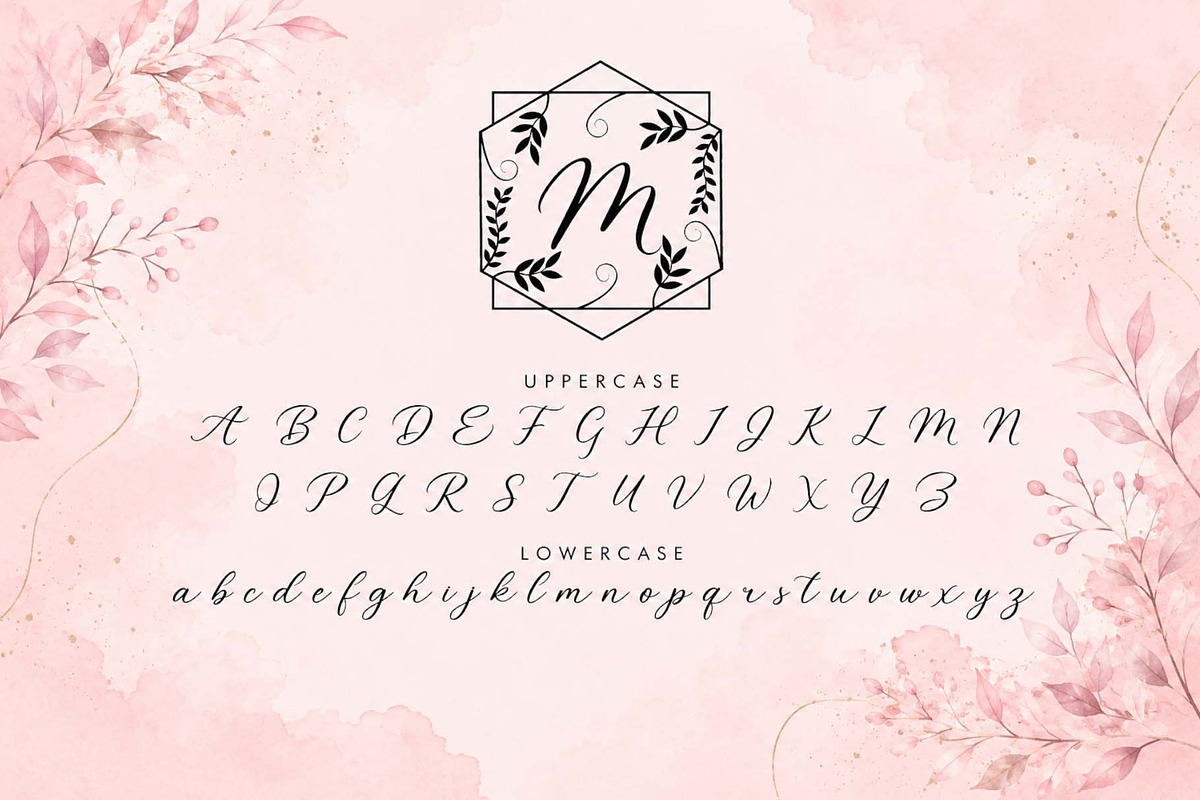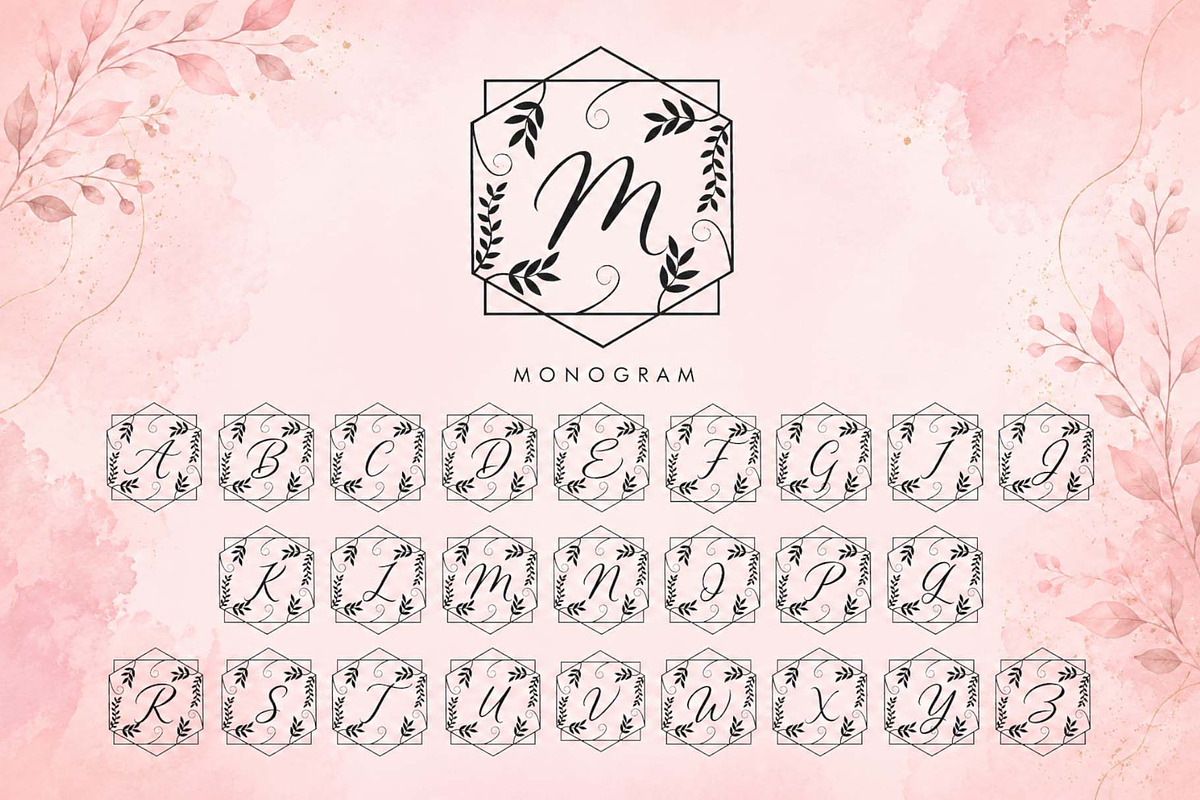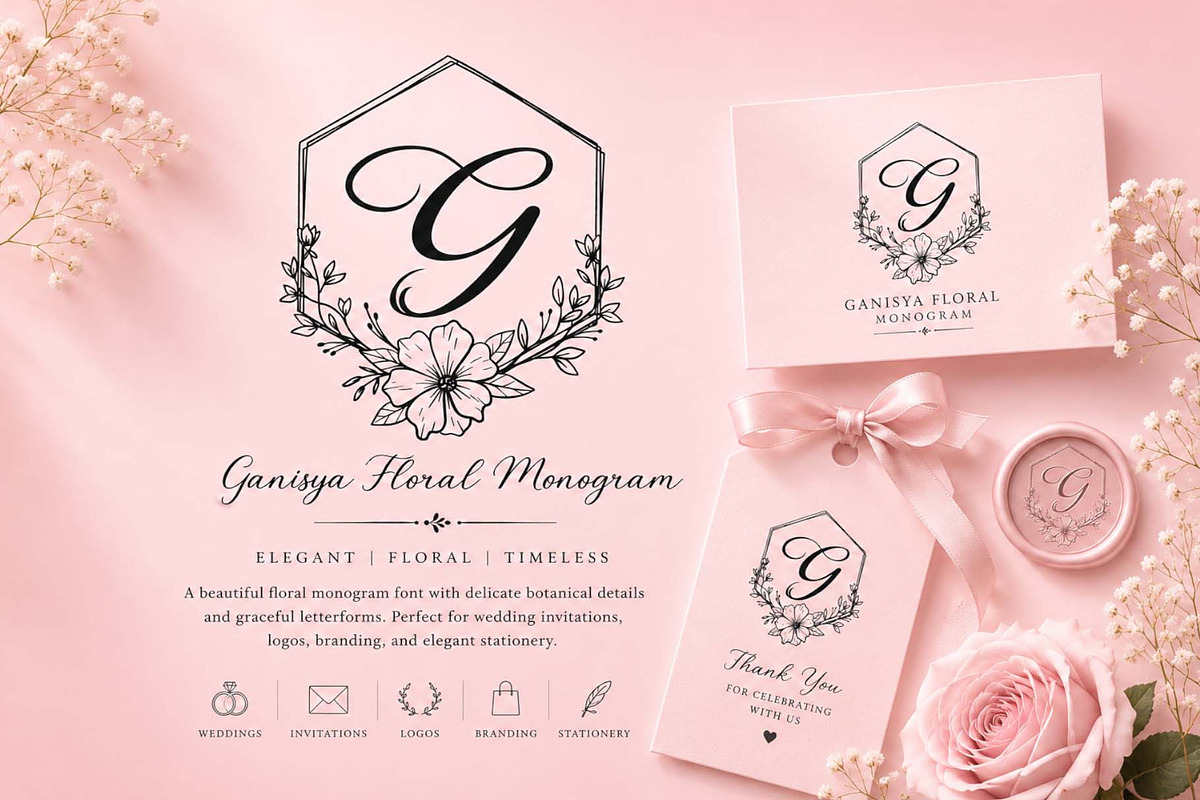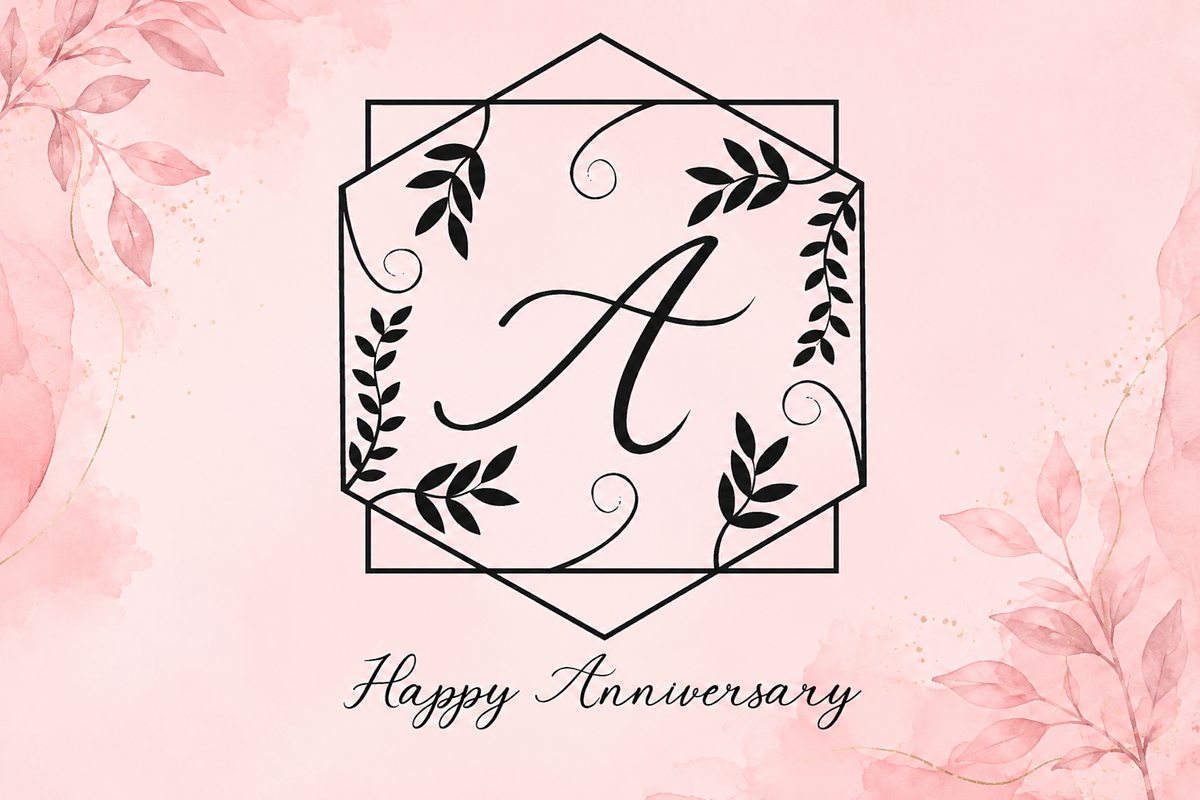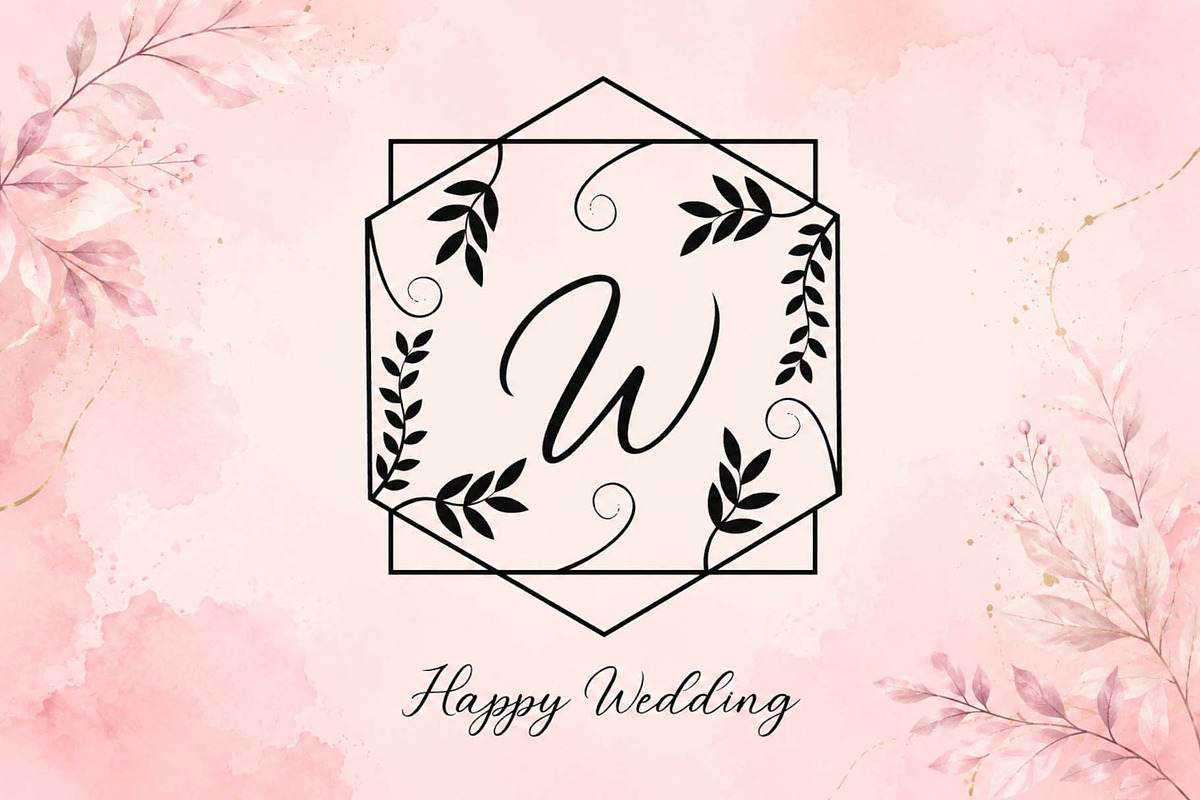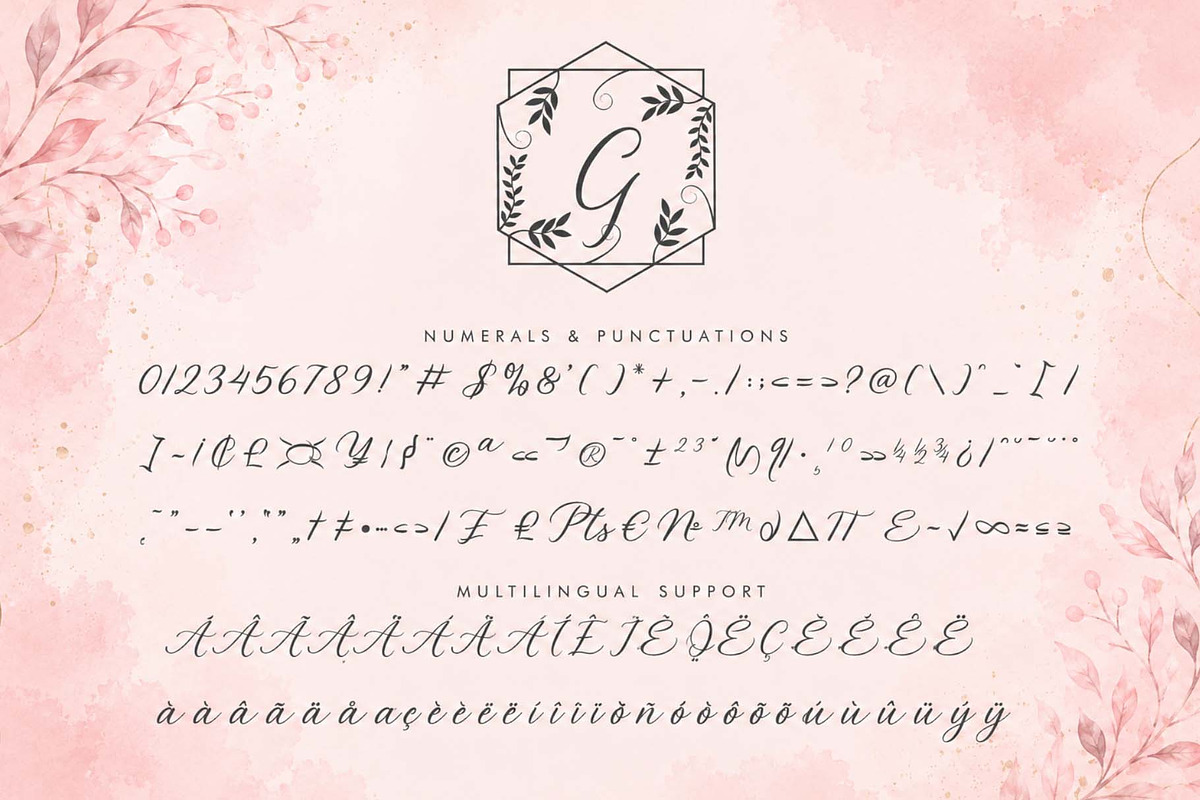
Ganisya Floral Monogram
Ganisya Floral Monogram is an elegant floral monogram font featuring graceful handwritten letters and a delicate botanical frame. Perfect for wedding invitations, logos, branding, stationery, gift tags, and other personalized designs, this font adds a timeless, romantic, and sophisticated touch to any project. Each character is meticulously designed to create a luxurious and refined look while remaining easy to use.